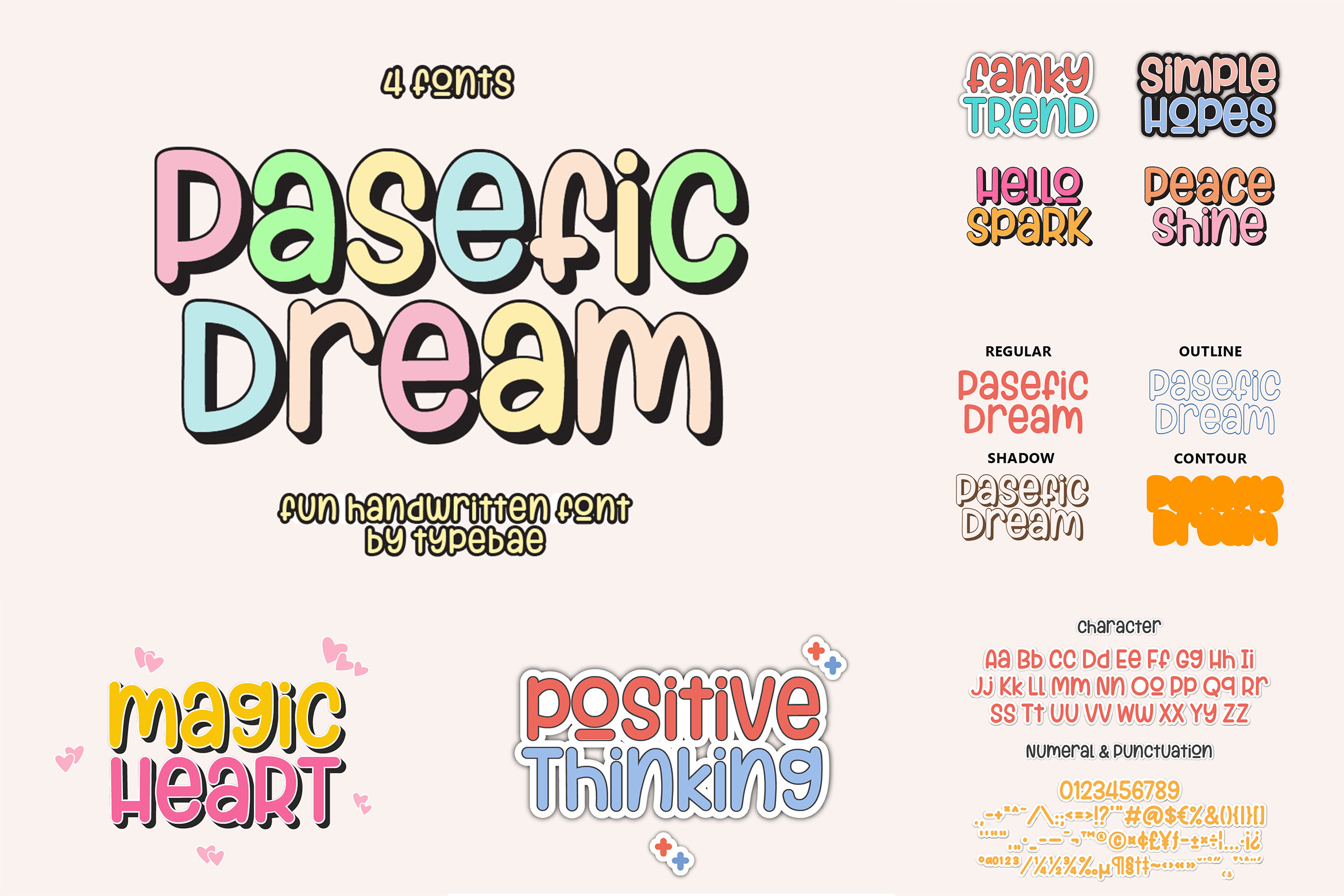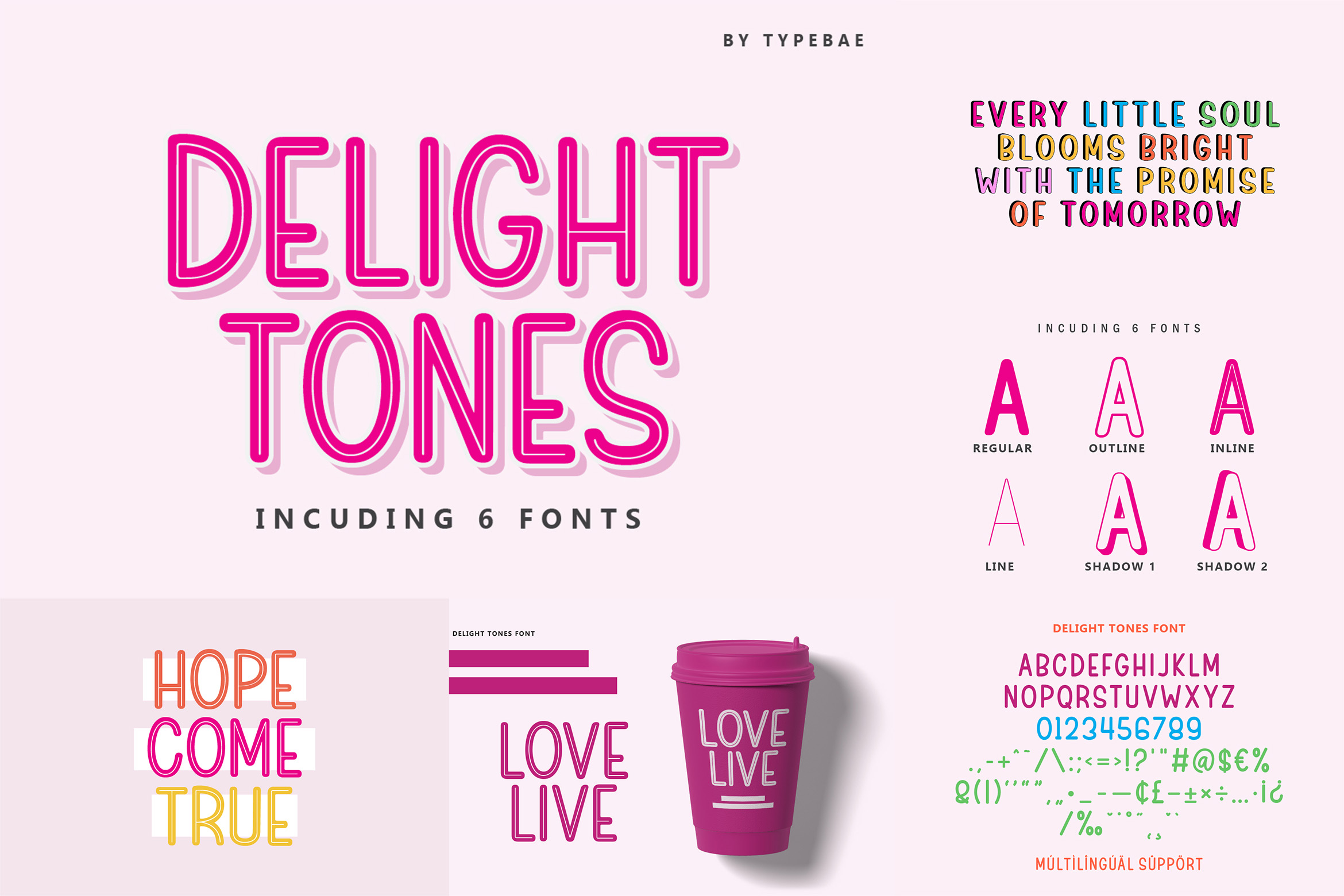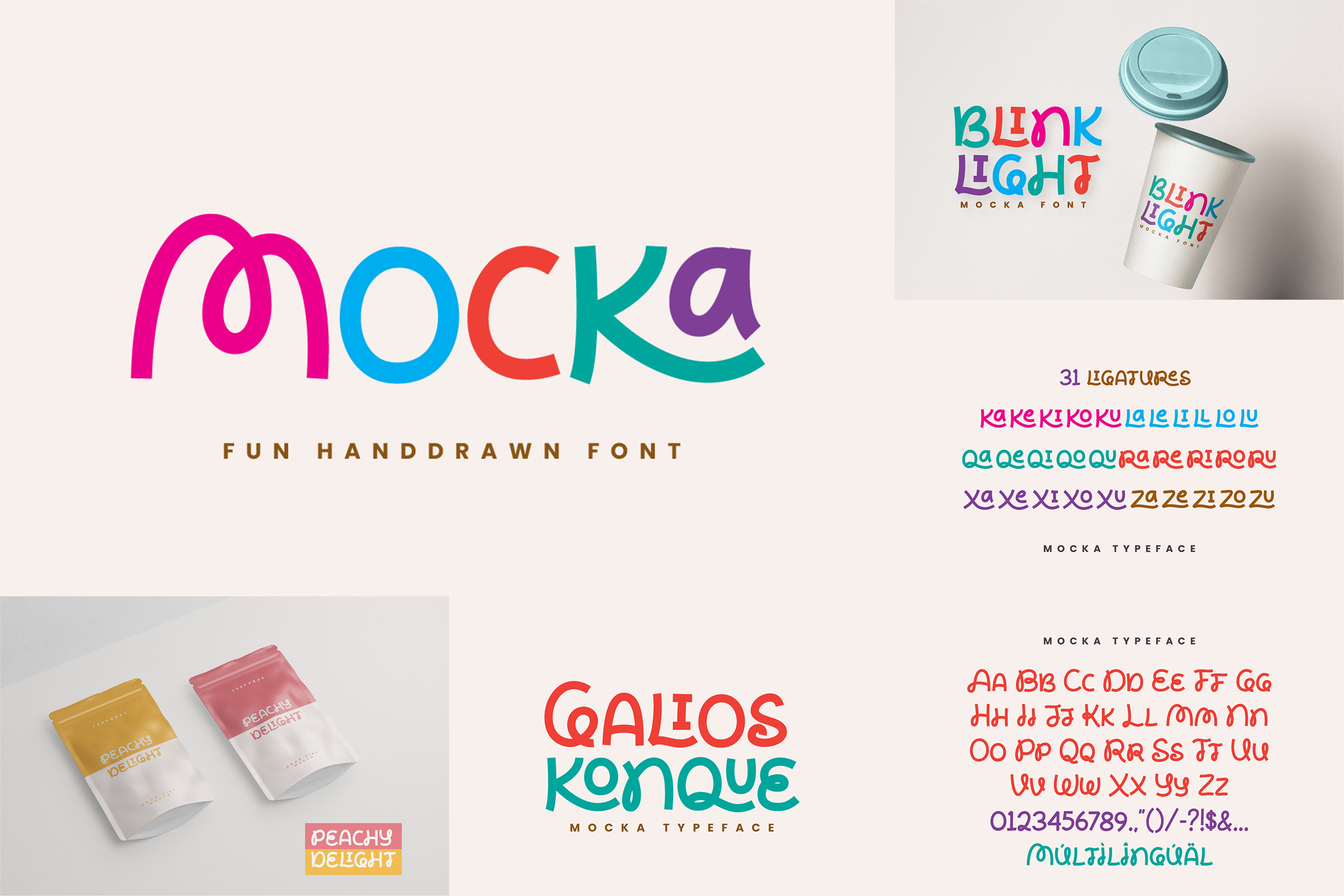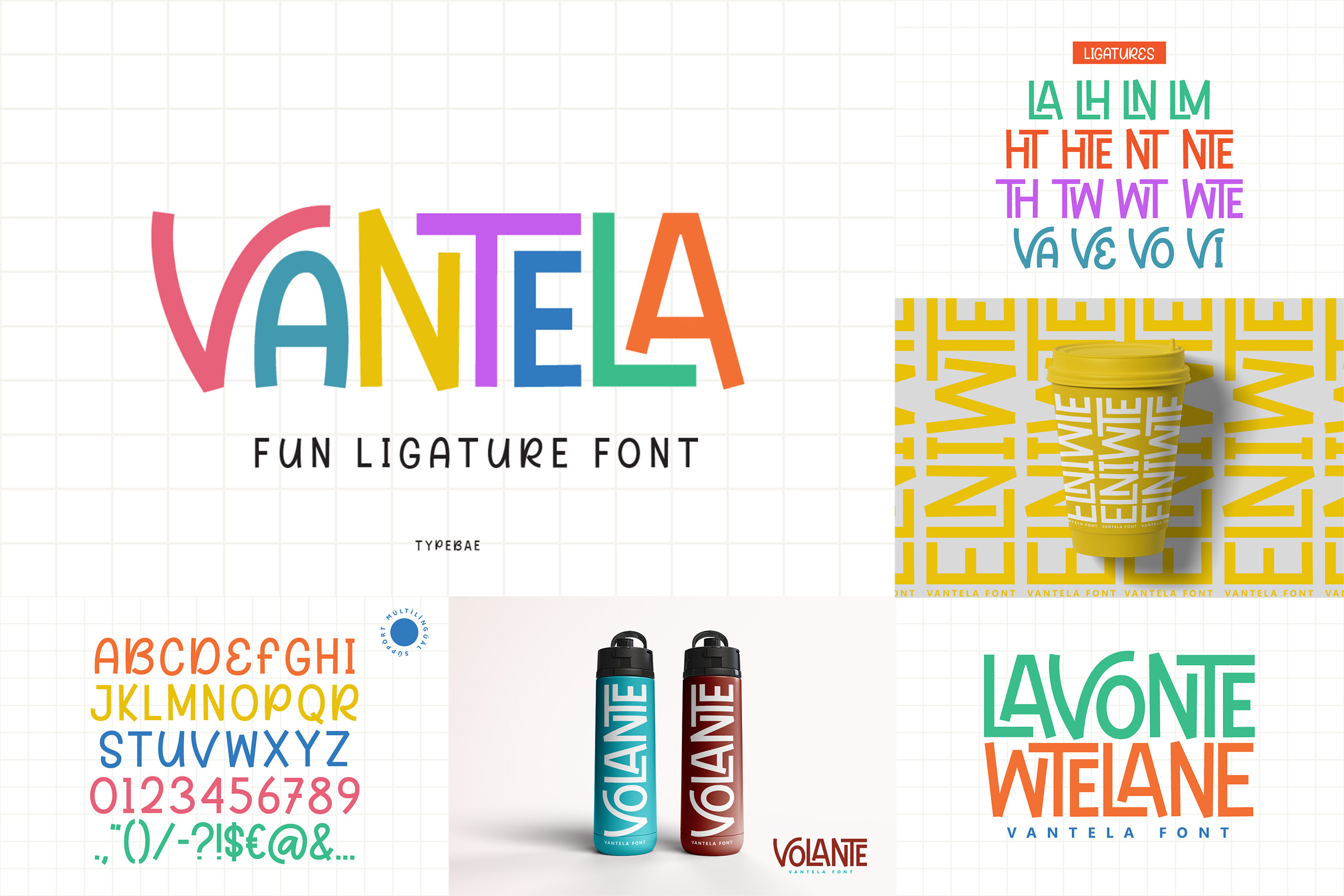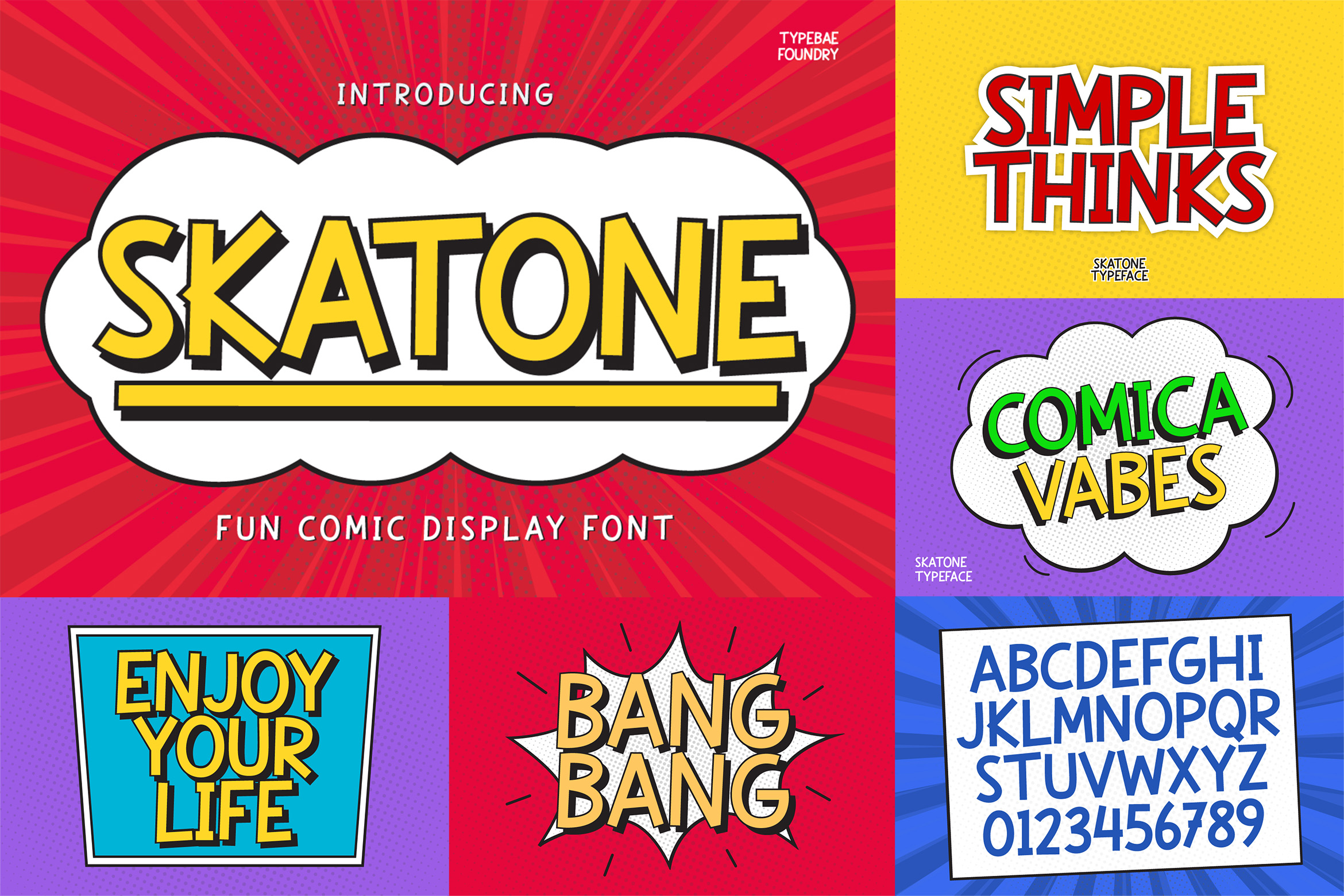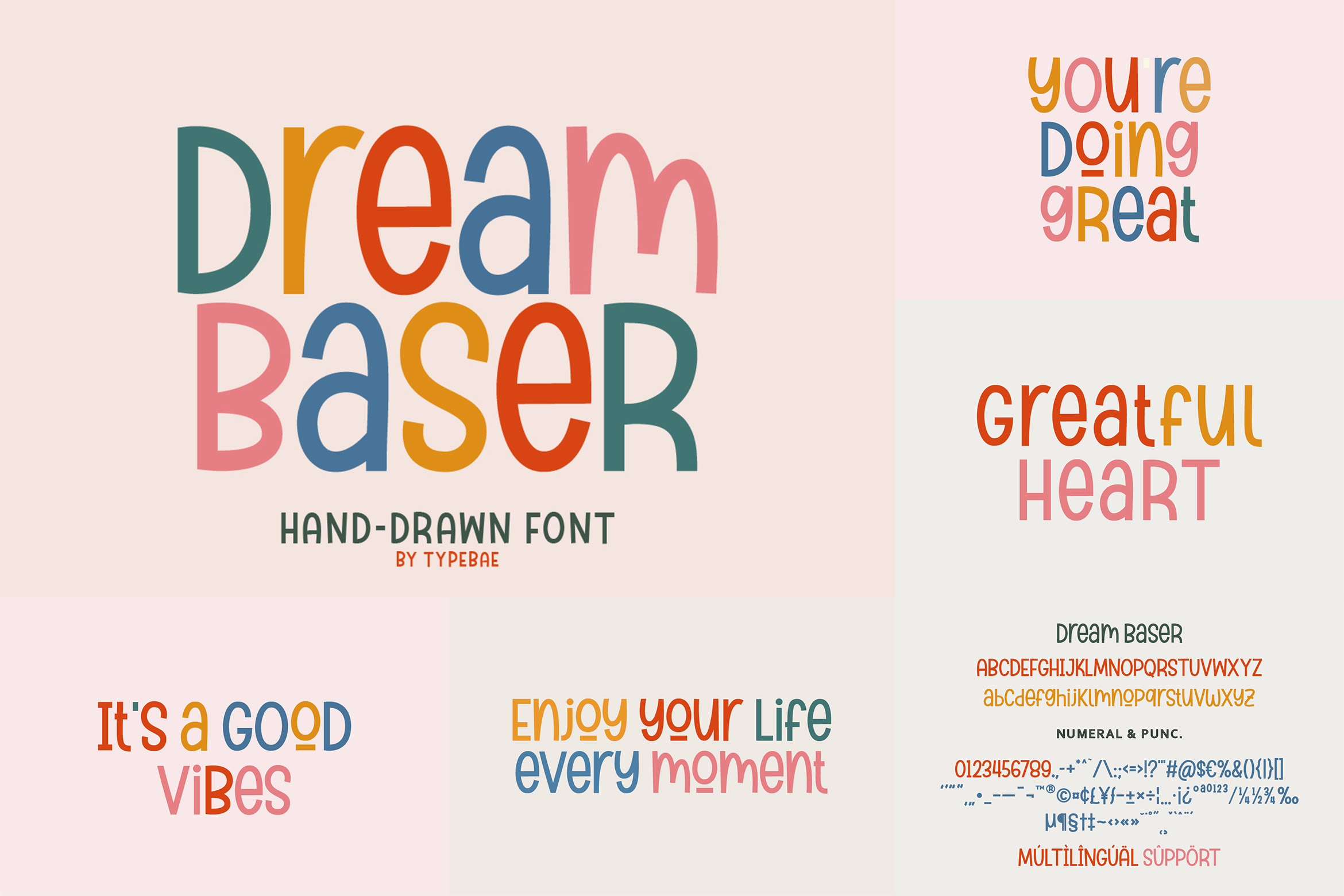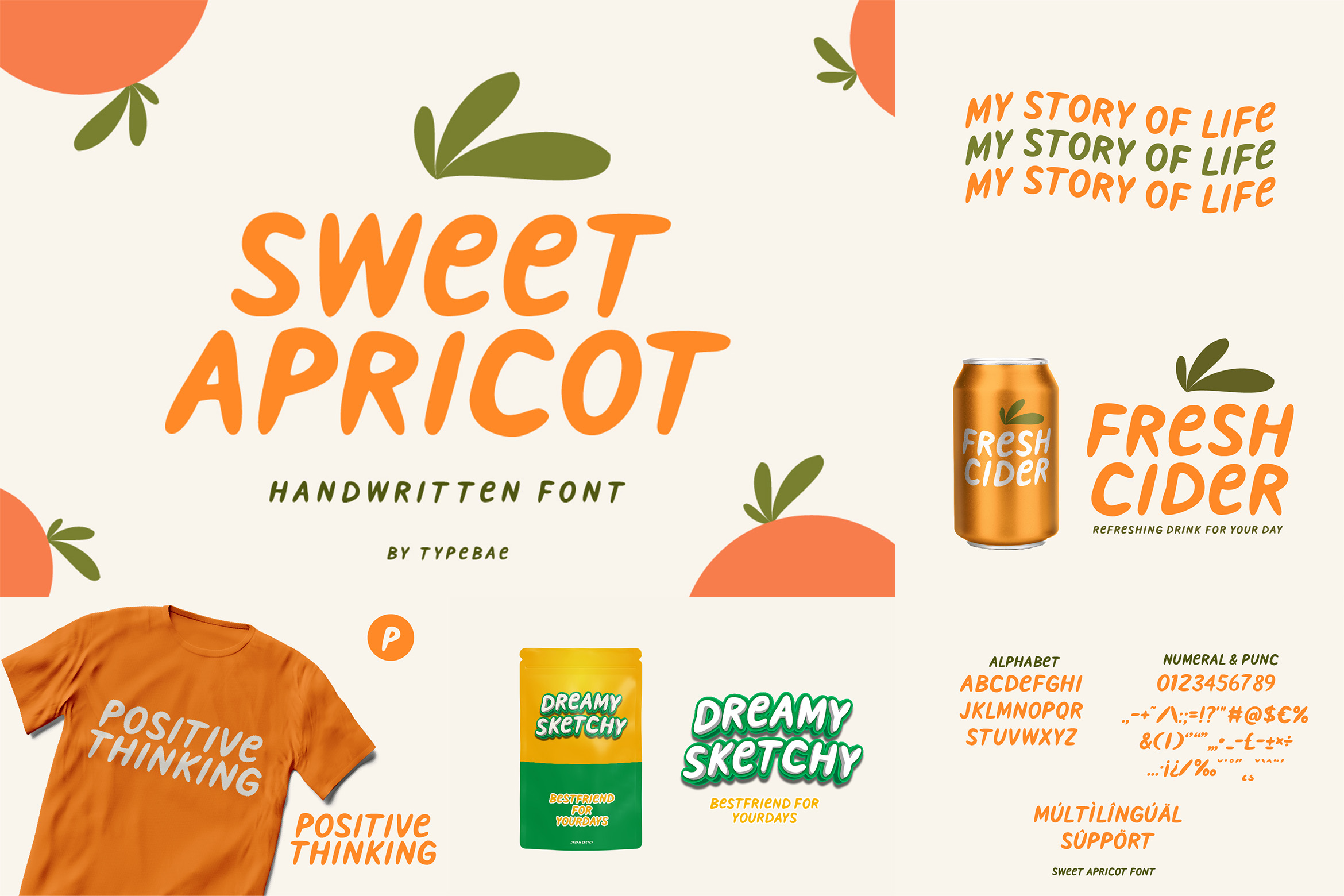
Discover the Perfect Typefaces to Add Personality and Joy to Your Designs
In the world of design, choosing the right font can make or break your creative project. Whether you’re designing logos, social media graphics, children’s books, or marketing materials, fun and playful fonts have the power to instantly capture attention and convey emotion. Today, we’re showcasing 8 incredible typefaces that will breathe life into your designs and help you connect with your audience on a deeper level.
Why Fun & Playful Fonts Matter in Modern Design
Playful typography has become increasingly important in today’s design landscape. These fonts help brands and creators:
- Stand out from the competition with unique visual identity
- Connect emotionally with their target audience
- Convey personality and brand values instantly
- Increase engagement on social media platforms
- Create memorable visual experiences
8 Must-Have Fun & Playful Fonts
1. Pasefic Dream – The Ultimate Fun Handwritten Font
This charming 4-cents font by Typebae features delightful multi-colored letters that instantly grab attention. Perfect for children’s brands, party invitations, and social media graphics that need a touch of whimsy.
Best uses: Children’s products, party designs, social media posts, greeting cards
2. Delight Tones – Vibrant Display Typography
Including 6 fonts in one package, Delight Tones offers incredible versatility with its bold, colorful aesthetic. The pink and purple gradient effect makes it ideal for feminine brands and playful marketing campaigns.
Best uses: Fashion brands, beauty products, Instagram stories, blog headers
3. Mocka – Fun Hand-drawn Perfection
This hand-drawn font brings authenticity and warmth to any design. Its casual, friendly appearance makes it perfect for brands that want to appear approachable and genuine.
Best uses: Coffee shops, artisan brands, personal blogs, handmade product packaging
Vantela is a very unique and fun display font, complete with playful ligatures. Whether you use it for cartoon-related designs, children’s games, or any creation that needs a beautiful touch, this font will be an excellent choice.
6. Skatone – Fun Comic Display Font
With its bold, comic book aesthetic and yellow accents, Skatone brings superhero energy to your designs. Perfect for projects that need to convey action and excitement.
Best uses: Gaming brands, action sports, comic books, youth marketing
7. Dream Baser – Hand-Drawn Charm
This hand-drawn font by Typebae offers a perfect blend of professionalism and playfulness. Its multi colored letters create visual interest while maintaining readability.
Best uses: Creative agencies, art studios, inspirational quotes, lifestyle brands
8. Sweet Apricot – Playful Handwritten Font
A beautiful handwritten font that combines playfulness with sophistication. The organic flow makes it perfect for brands that want to appear both fun and premium.
Best uses: Food blogs, organic products, wedding invitations, lifestyle brands
Elevate Your Designs with Fun & Playful Fonts
Fun and playful fonts are more than just decorative elements they’re powerful tools for communication, brand building, and audience engagement. The 8 fonts showcased here represent some of the best options available for creators looking to add personality and joy to their designs.
Whether you’re a graphic designer, brand owner, or content creator, investing in high-quality playful fonts will pay dividends in increased engagement, better brand recognition, and stronger emotional connections with your audience.